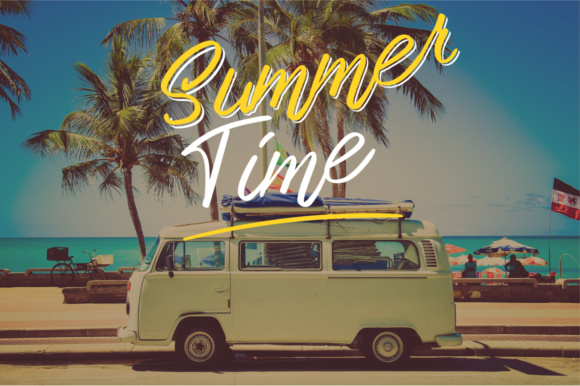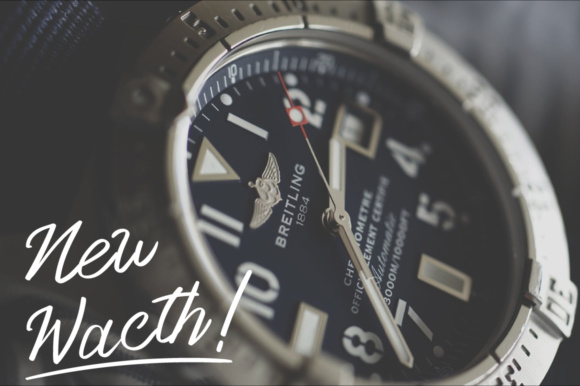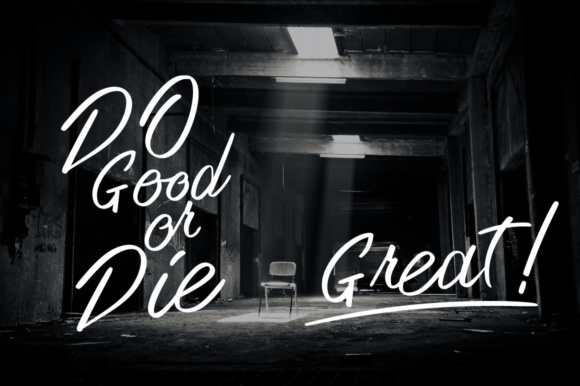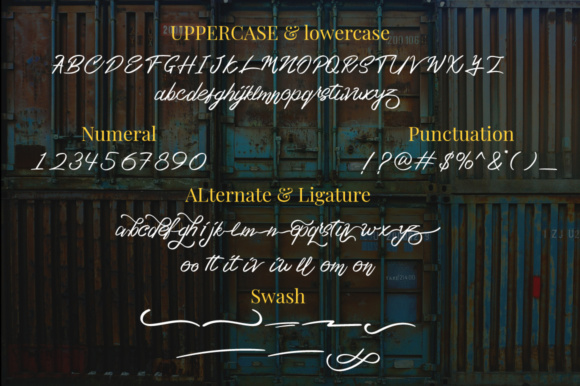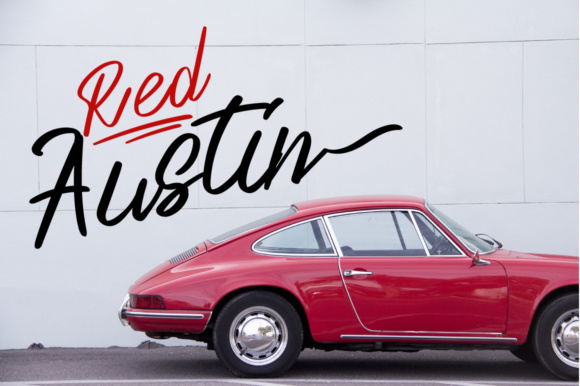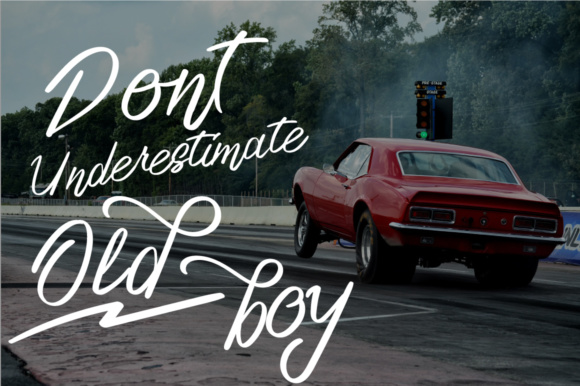
Introduction to Ourlastt Font
The Ourlastt is a modern hand lettering script with dramatic movement.
Its two styles are allowing you to create beautiful hand-made typography Ourlastt is perfect for branding, logos, wedding designs, social media posts, advertisements, product packaging and more.
Key Features of Ourlastt Font